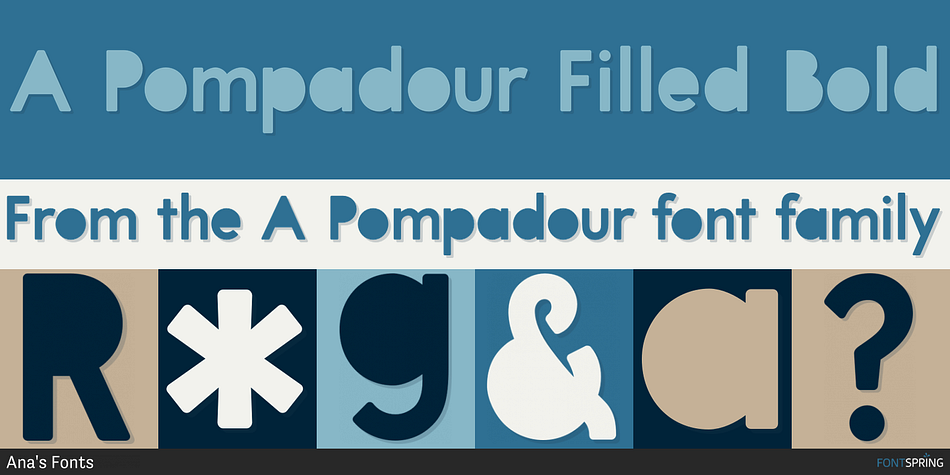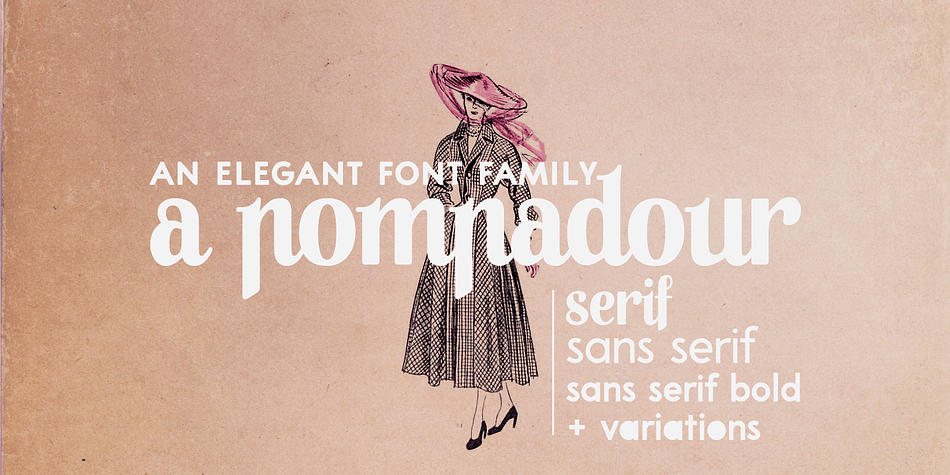
A Pompadour Filled Bold
Designed by Ana Parracho, A Pompadour is a sans serif, script and display sans font family. This typeface has five styles and was published by Ana's Fonts.
Meet A Pompadour! An elegant retro font family, in two styles that go together nicely. The fonts include:
It’s great for magazines, posters, branding, business cards, resumes, for short and long texts.
Style Filled Bold